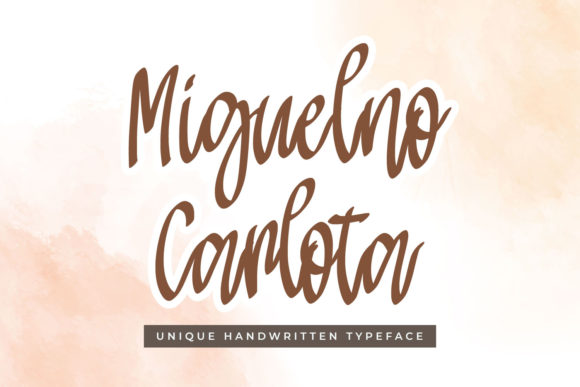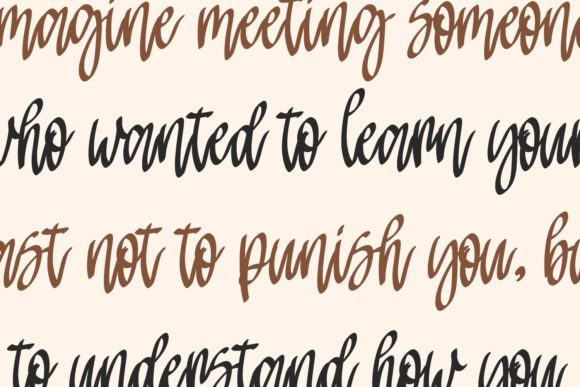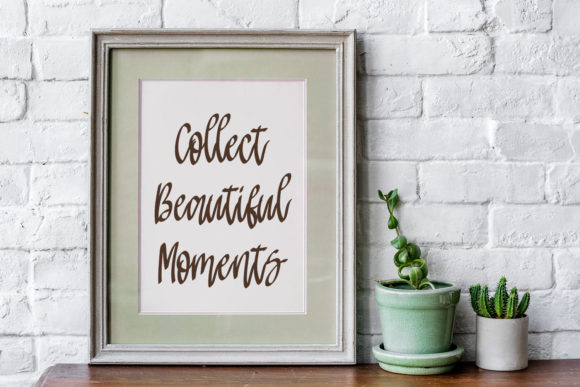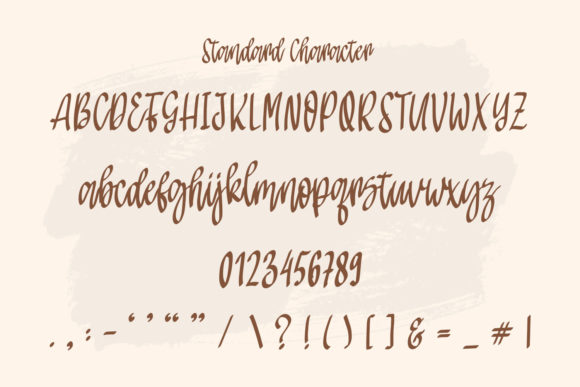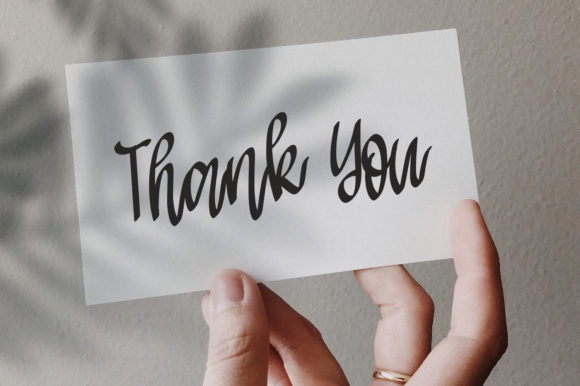
Miguelno Carlota Font
About Miguelno Carlota Font
Miguelno Carlota is a sweet and flowing script font. Fall in love with its cute and joyful style and use it to create gorgeous wedding invitations, beautiful stationary art, eye-catching social media posts, and much more!